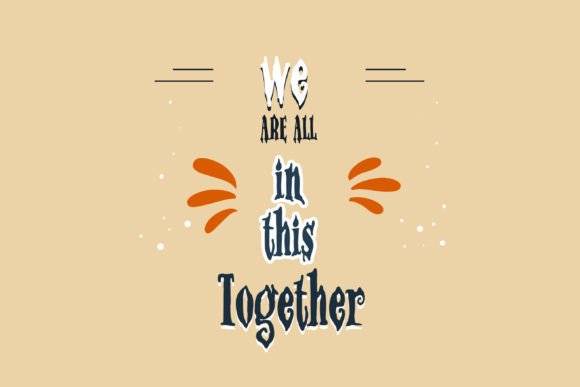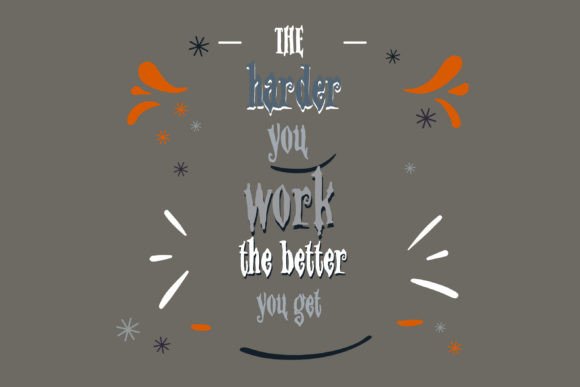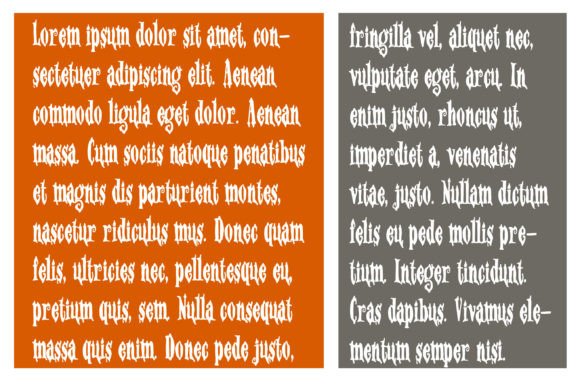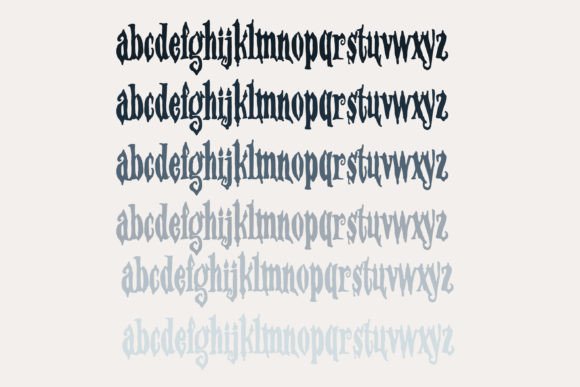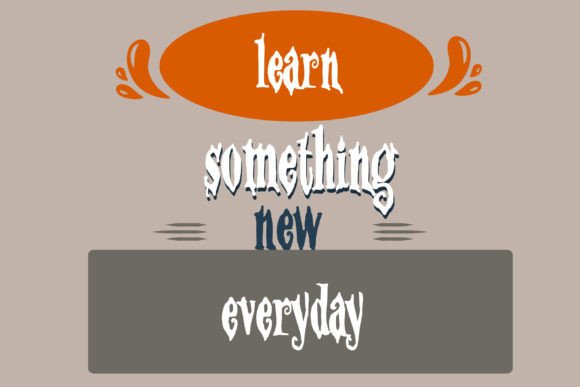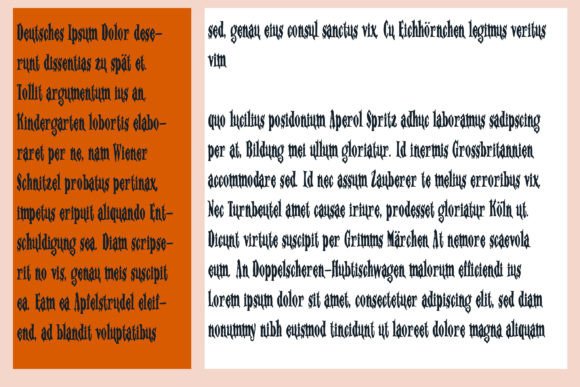
Introduction to Mysterious Font
Mysterious is a spooky and creepy display font.
Add it now to your font collection and notice how your Halloween designs will instantly look scary and dramatic .
Mysterious Font offers exceptional quality and versatility, making it a valuable addition to your design toolkit. Whether you’re creating for personal projects or commercial use, Mysterious Font delivers professional results.